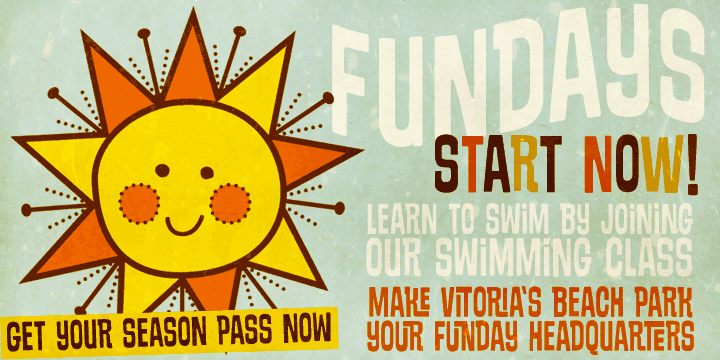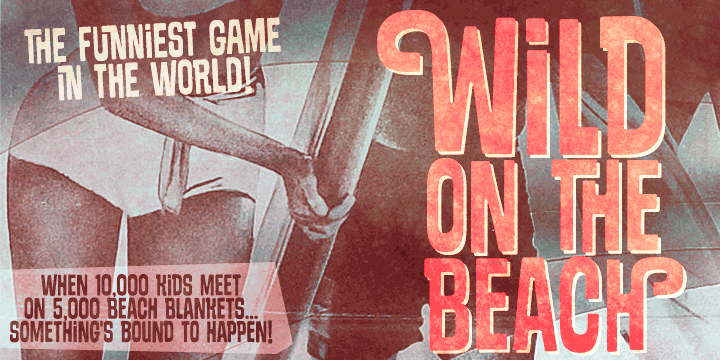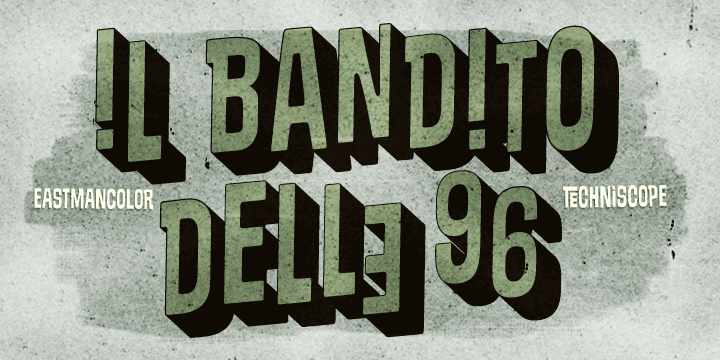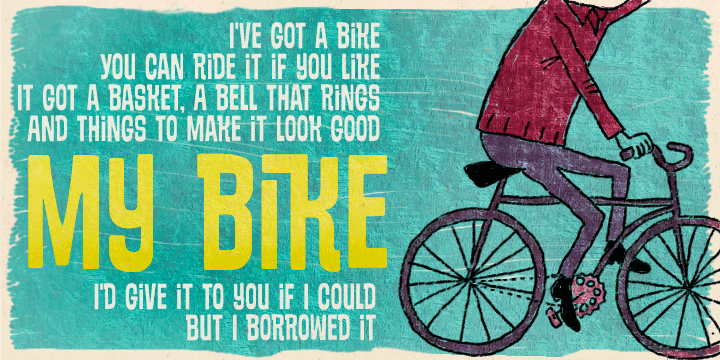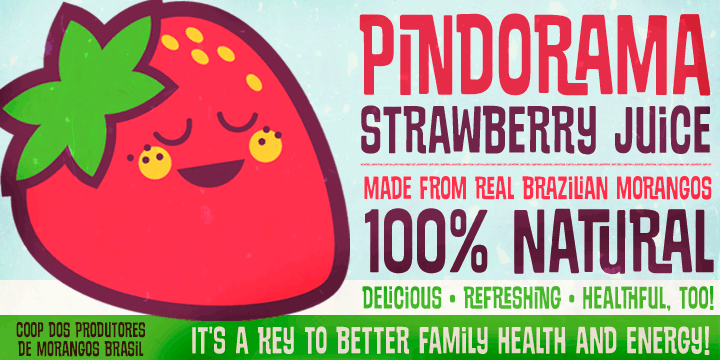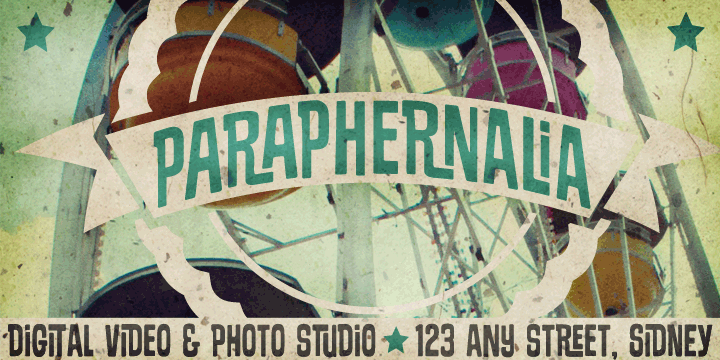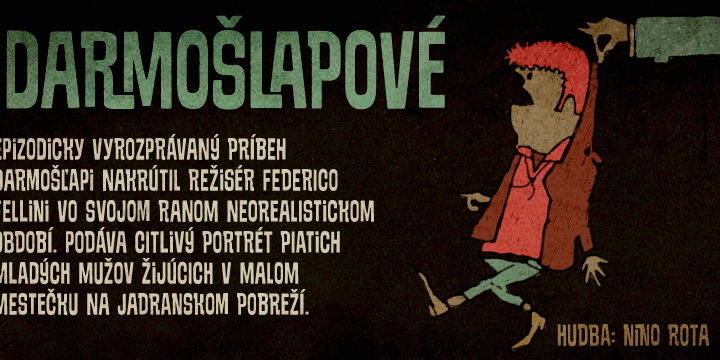
About the Sundowners Font
About Sundowners Font Family Sundowners is a smiley face. It is a simple and versatile font, with a pocketful of cool interlocking glyphs for those days of groovier moods. It also brings a handful of amusing initial and terminal forms and a couple of ornaments.